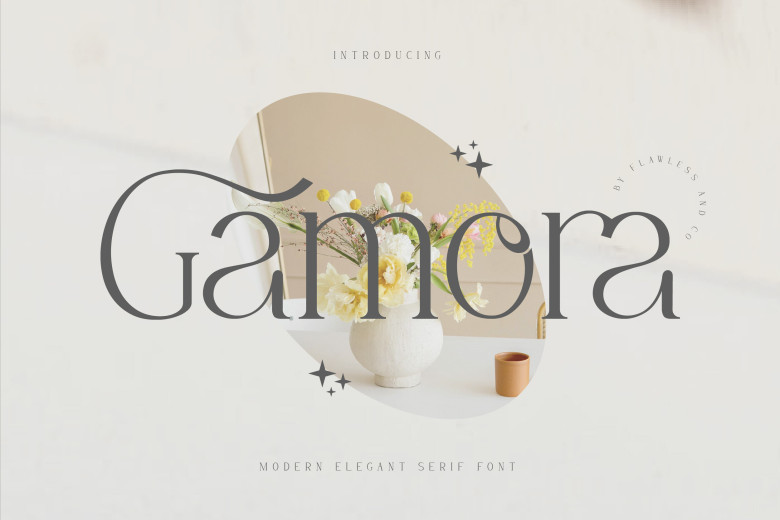
Gamora Font
Introduce “Gamora”, A Modern Elegant Serif Font. Find the ideal blend of style and modernity with “Gamora,” an eye-catching serif font offering not only a sophisticated aesthetic, but also providing you with various ligatures and alternatives for endless design options.
With its beautiful lines, delicate serifs and stunning details “Gamora” exudes modern grace while reflecting individualism at the same time.
Gamora Serif Font